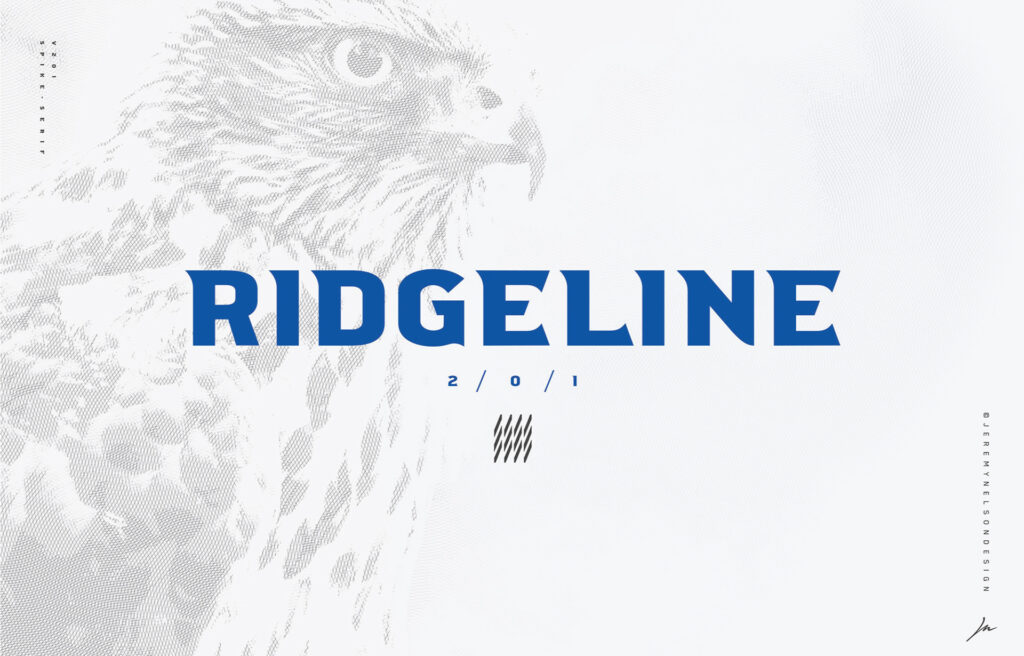
Ridgeline 201 is a free display typeface created by Jeremy Nelson. Created as part of a sports identity system, Ridgeline was inspired by speed, agility and an unapologetic style of play.